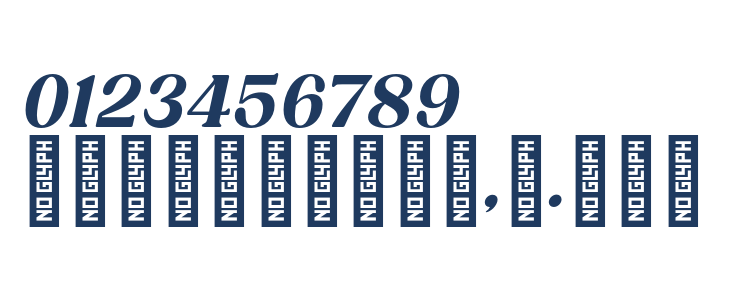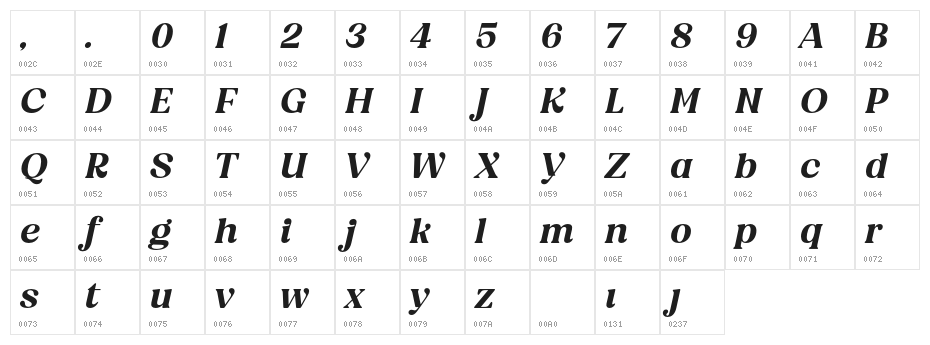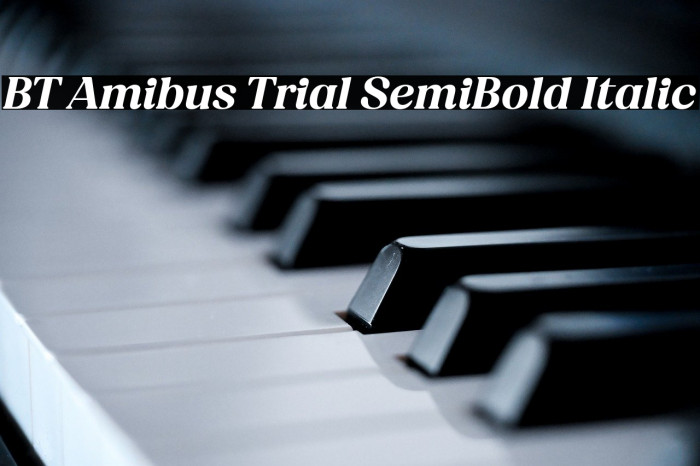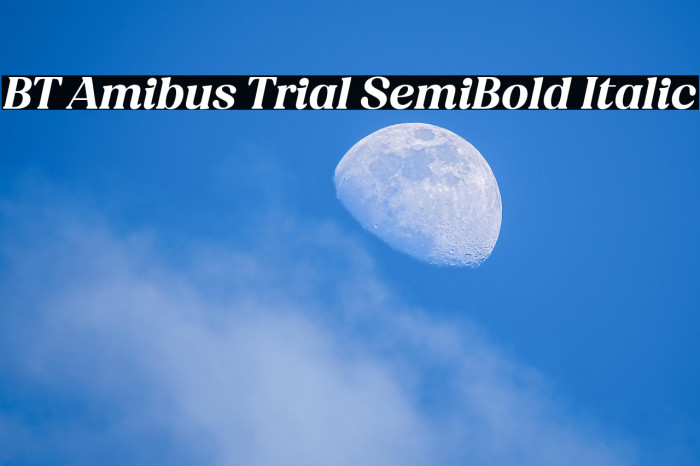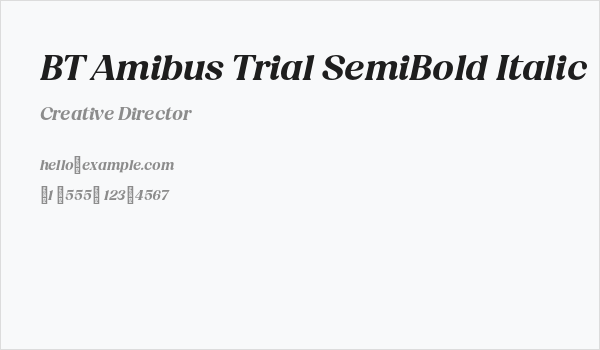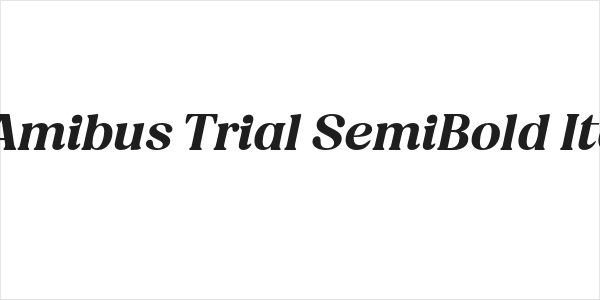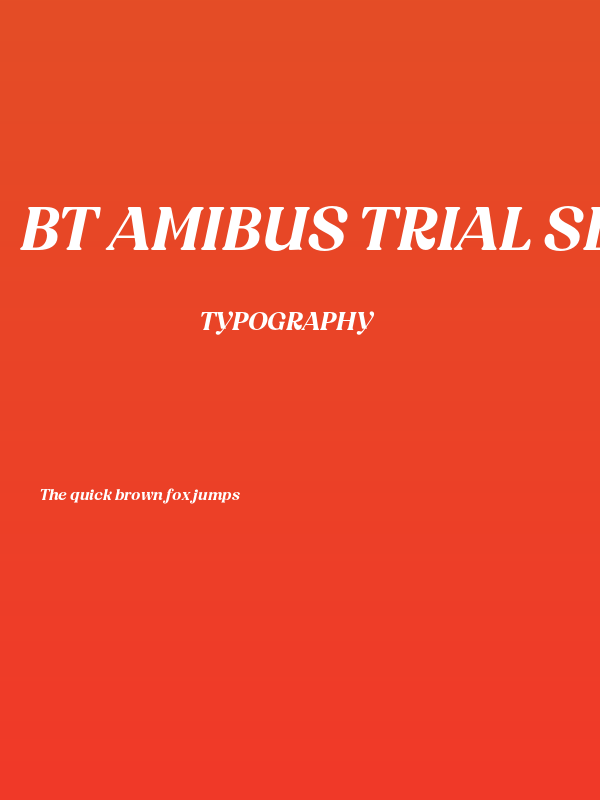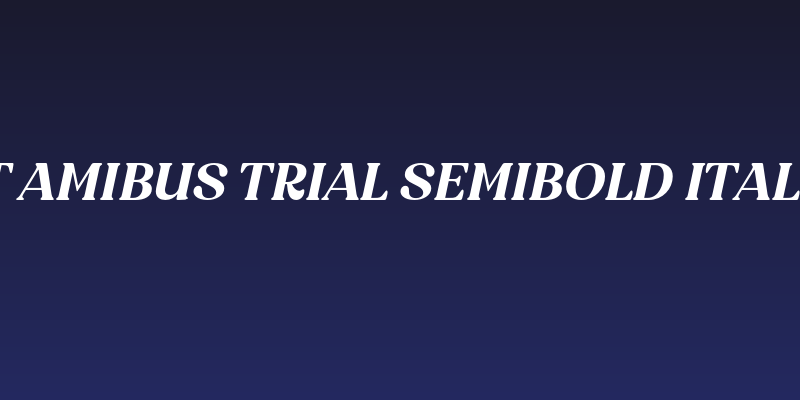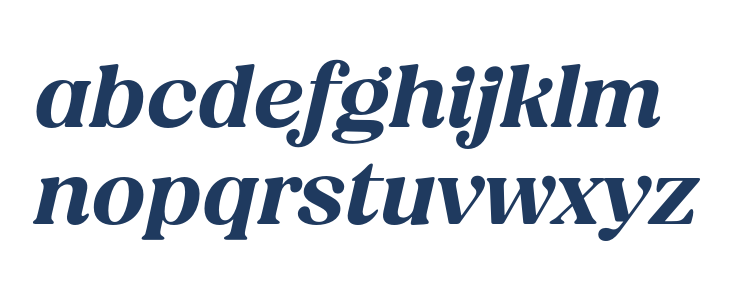
BT Amibus Trial SemiBold Italic Font
BT Amibus Trial SemiBold Italic Description
This font features a classic serif style with a semi-bold weight, offering a strong yet elegant appearance. The italicized form adds a sense of movement and sophistication, making it suitable for formal and creative applications. The characters are well-defined with moderate contrast between thick and thin strokes, enhancing readability while maintaining a stylish flair. The overall design is balanced, with slightly condensed letterforms that contribute to a refined and polished look.
| Use Case | Headlines, Editorials, Branding |
| Proposed Projects | Ideal for use in editorial design, book covers, elegant invitations, branding projects, and sophisticated advertising materials. |